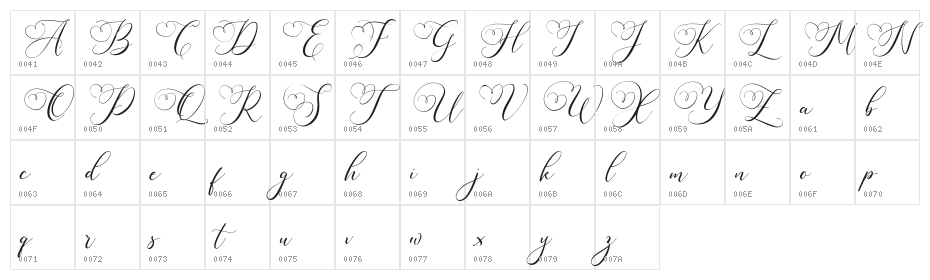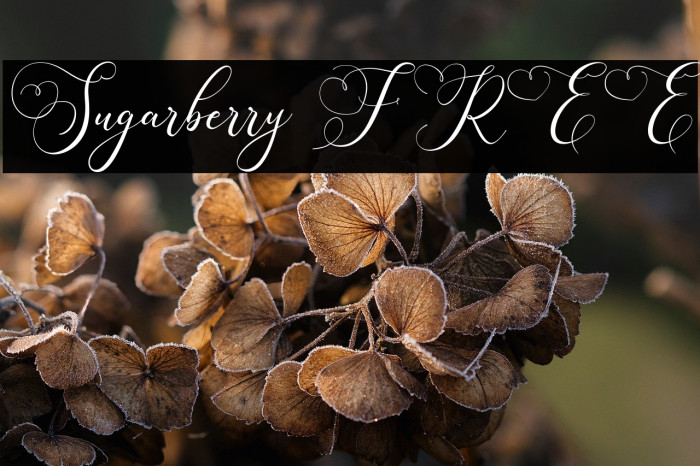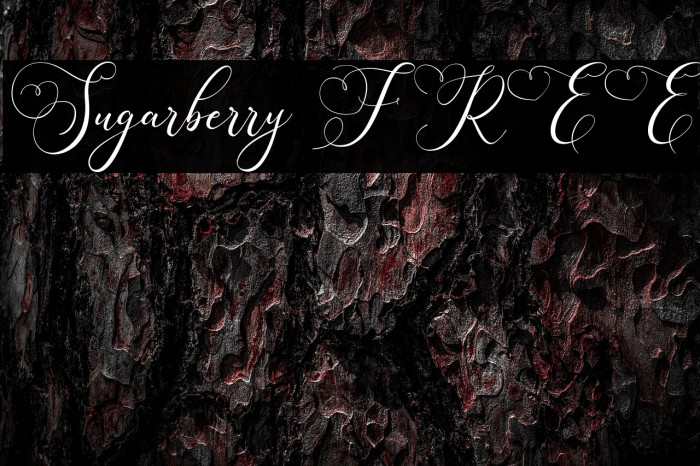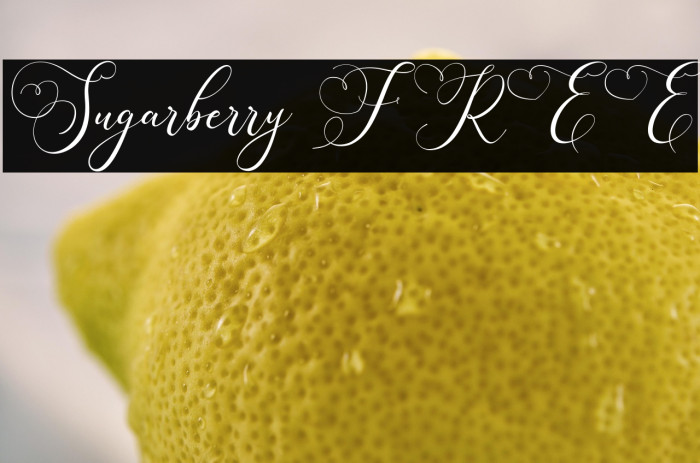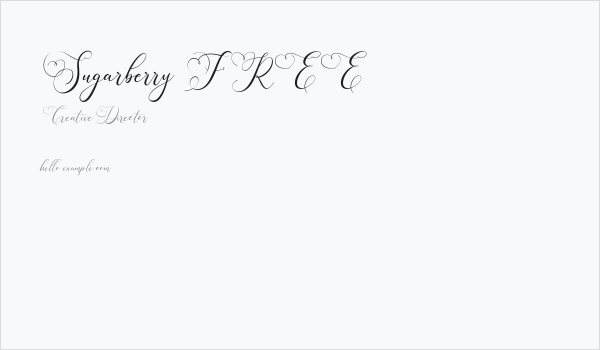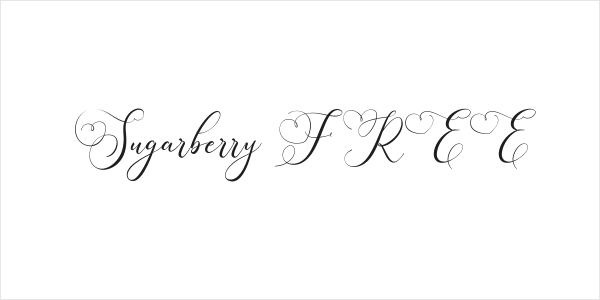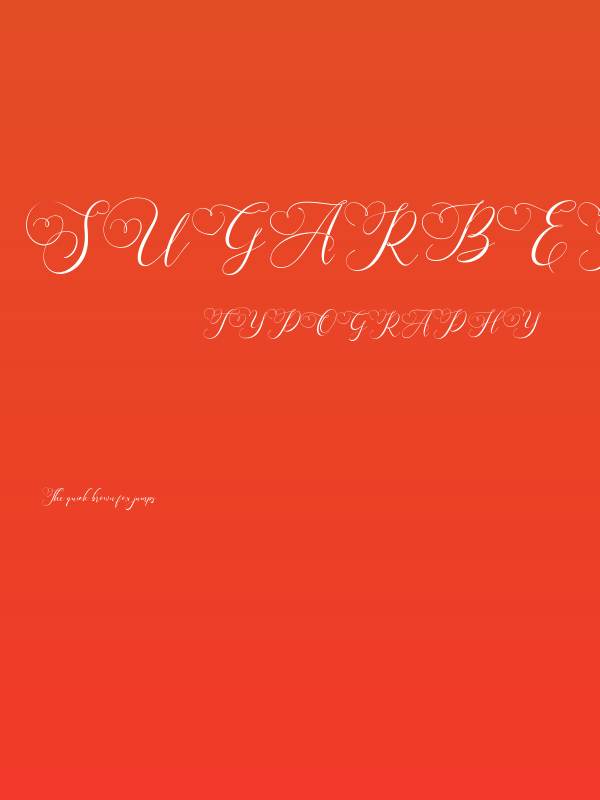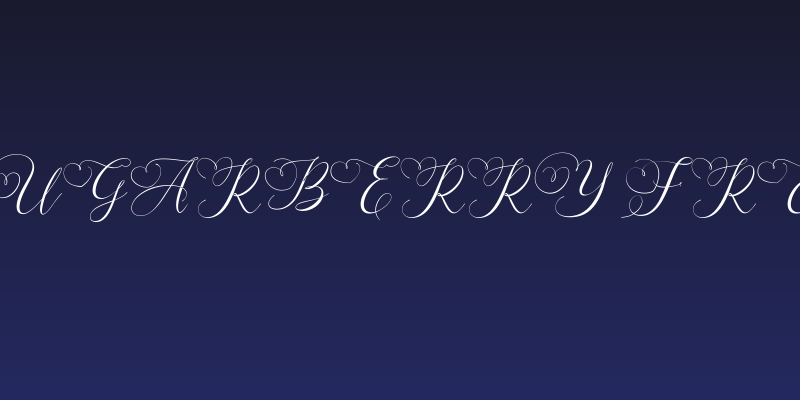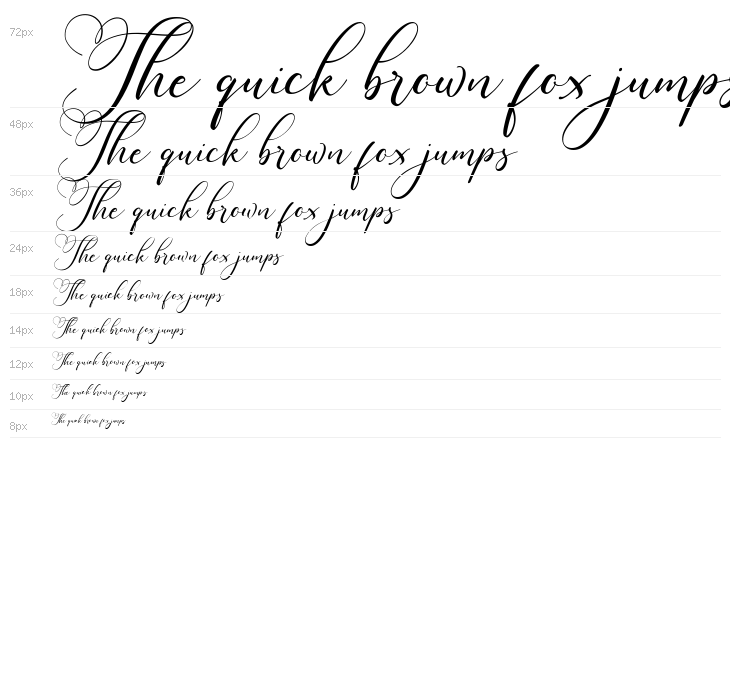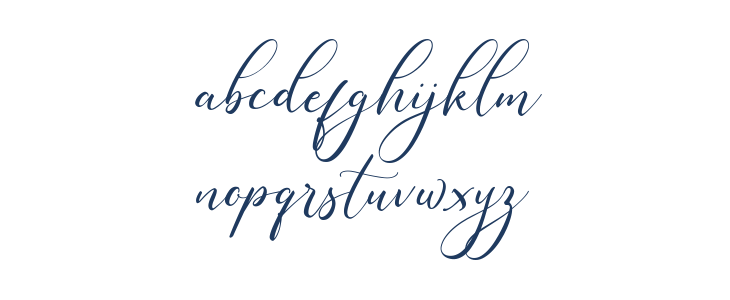
Sugarberry FREE Font
Sugarberry FREE Description
This elegant script font features a flowing, cursive style with intricate loops and swirls, giving it a sophisticated and romantic appearance. The uppercase letters are adorned with decorative flourishes, while the lowercase letters maintain a smooth, connected flow. The font exhibits a high contrast between thick and thin strokes, enhancing its graceful and stylish look. It is well-suited for projects that require a touch of elegance and charm, such as wedding invitations, greeting cards, and branding for luxury products. The overall design is both classic and modern, making it versatile for various creative applications.
| Overall Style | Elegant, Romantic |
| Proposed Projects | Ideal for wedding invitations, luxury branding, greeting cards, and elegant stationery. |